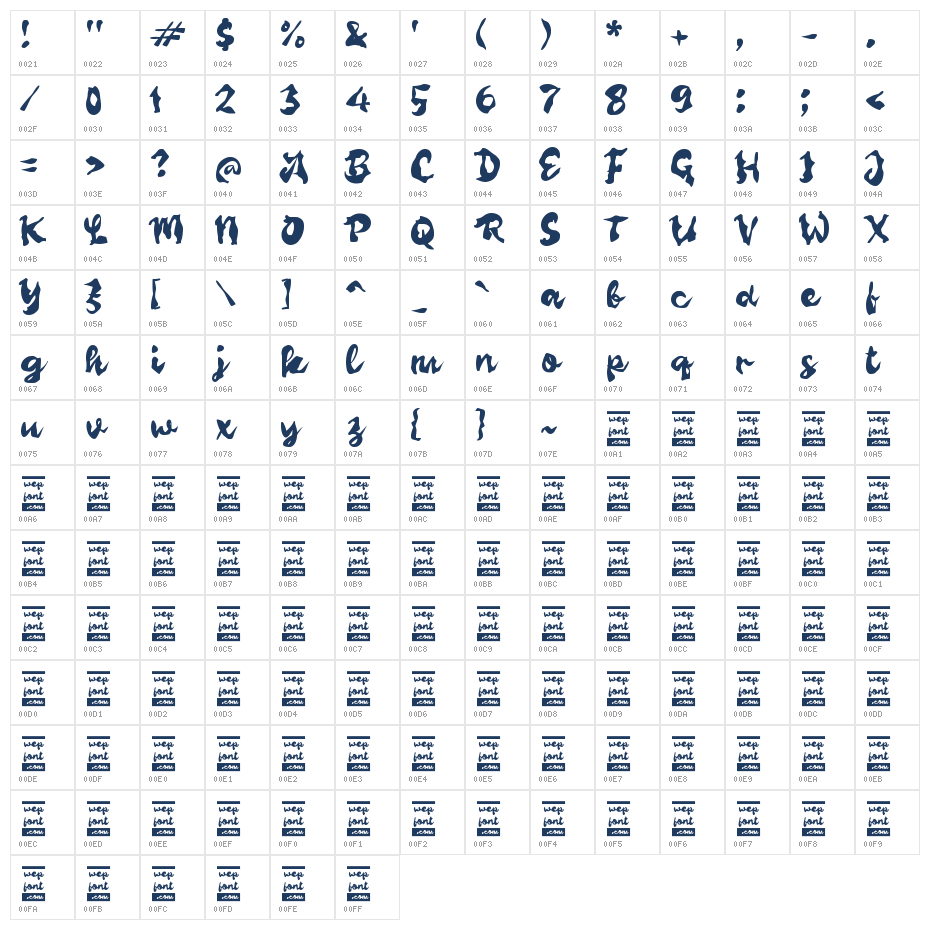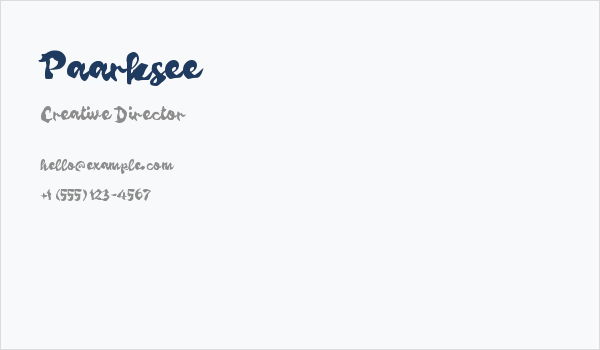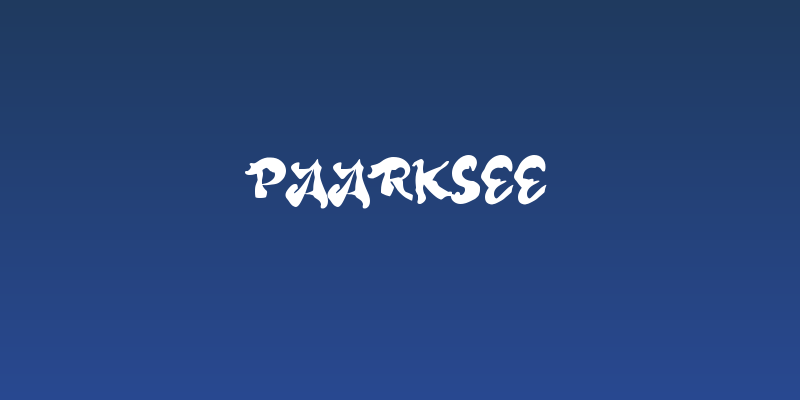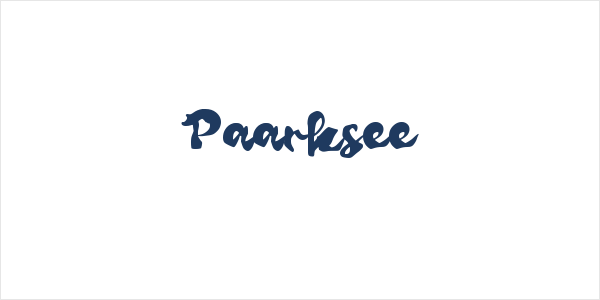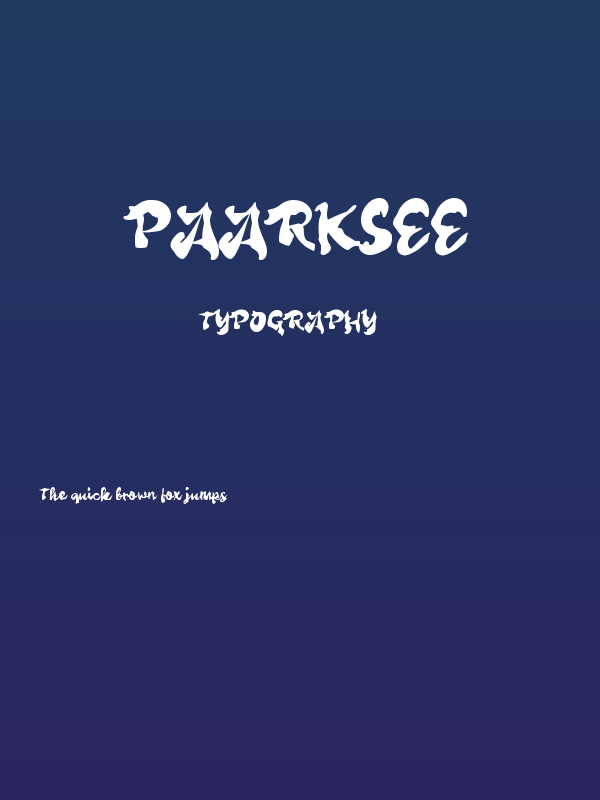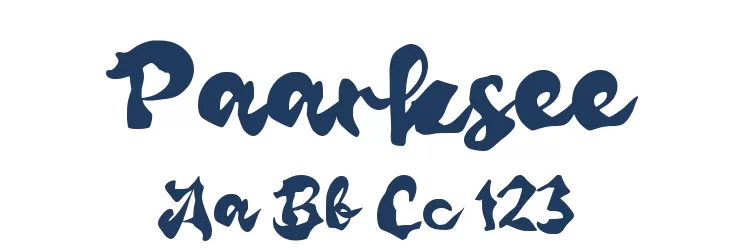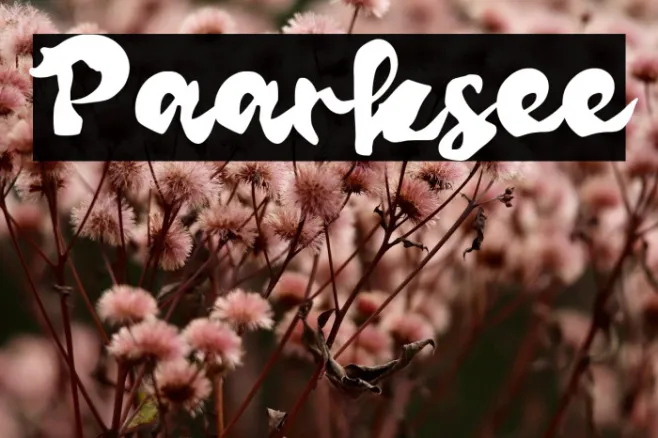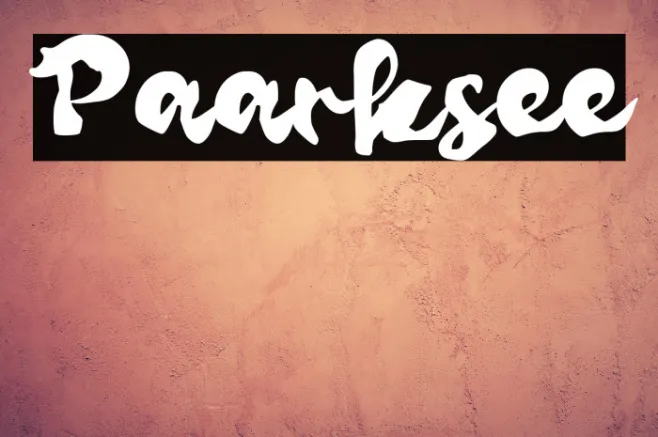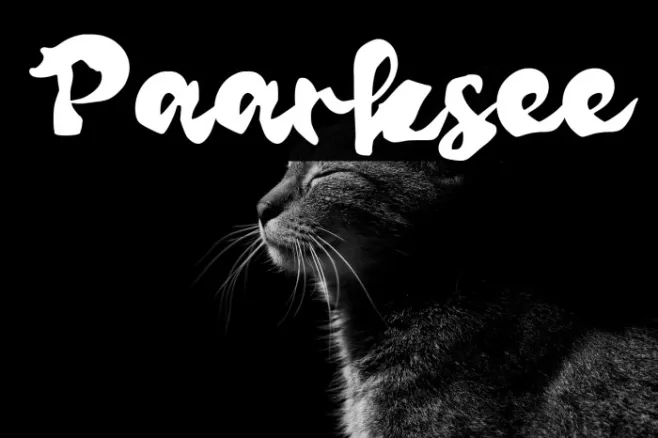
Paarksee Font
Paarksee Description
A bold, brush-style script font with a casual, handwritten appearance, featuring irregular strokes and a playful, dynamic feel.
| Overall Style | Casual, Handwritten, Artistic |
| Use Case | Headlines, Posters, Invitations, Creative branding |